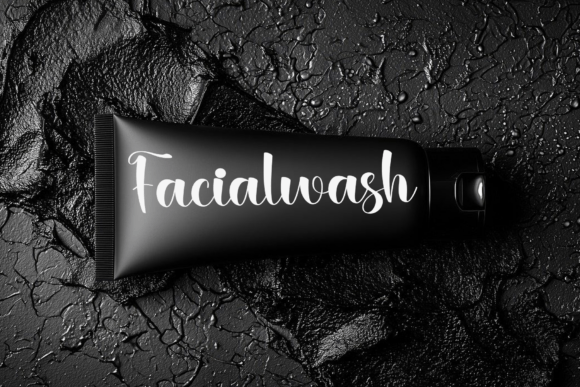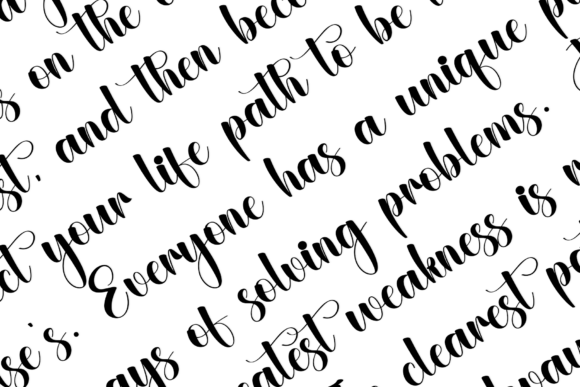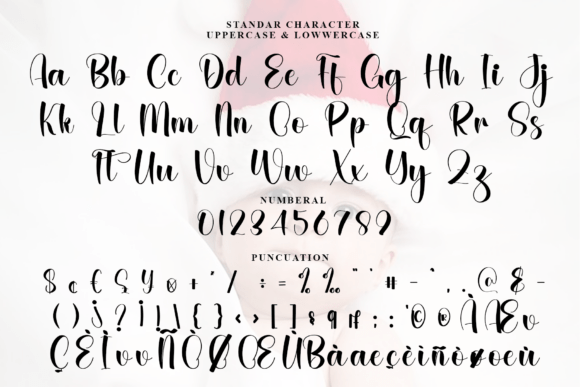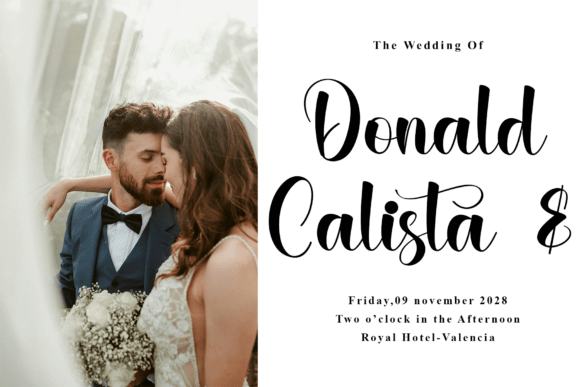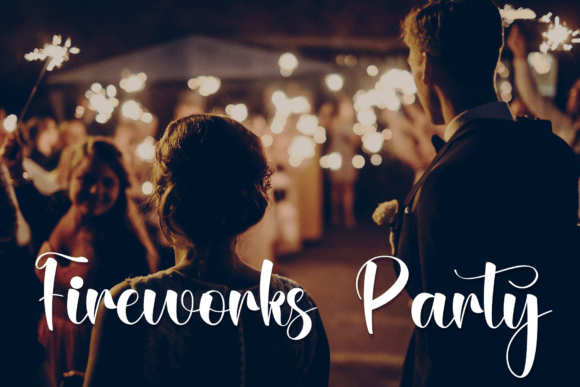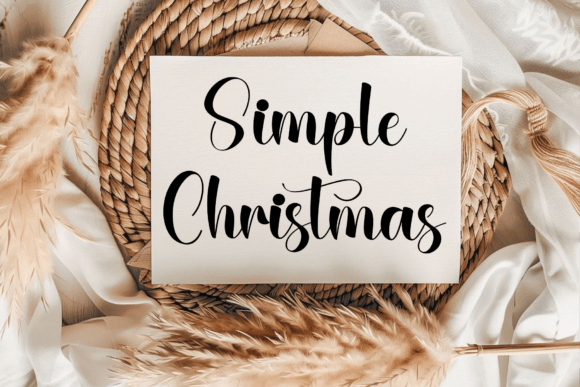
Babysanta Font: Elevate Your Designs with Elegance and Sophistication
In the world of typography, a font can make all the difference in elevating a design from ordinary to extraordinary. For designers and crafters seeking a touch of refined elegance and modern grace, the Babysanta Font is an exceptional choice. This sophisticated handwritten script font is designed to bring warmth, style, and a hint of timeless charm to any project.
The Essence of Babysanta Font
Babysanta Font is a masterpiece of modern calligraphy, boasting fluid curves and seamless letter connections that mirror the natural rhythm of a skilled calligrapher’s hand. The font’s balanced interplay of graceful swashes and clean letterforms ensures that it is not only beautiful but also highly readable. This makes it an ideal choice for a wide range of applications, including branding, invitations, stationery, packaging, and any design that requires a romantic yet contemporary feel.
Key Features of Babysanta Font
- Fluid Curves and Seamless Connections: The font’s fluid curves and seamless letter connections give it a natural, hand-crafted feel that is both elegant and sophisticated.
- Balanced Swashes and Clean Letterforms: The interplay of graceful swashes and clean letterforms ensures that the font is highly readable while maintaining its beauty.
- Subtle Contrast in Stroke Weight: The subtle contrast in stroke weight adds depth and movement to the typography, giving it an artistic flow that feels effortlessly luxurious.
- PUA Encoding: With PUA encoding included, all special characters, swashes, and decorative elements are easily accessible, allowing for effortless customization of designs.
Applications of Babysanta Font
Babysanta Font is incredibly versatile and can be used in a variety of design projects, including:
- Branding: Use Babysanta Font to create a sophisticated and elegant brand identity that sets your business apart.
- Invitations: Add a touch of luxury and refinement to your invitations, making them perfect for weddings, parties, and other special occasions.
- Stationery: Elevate your stationery designs with the elegant and modern feel of Babysanta Font.
- Packaging: Use Babysanta Font to create eye-catching and sophisticated packaging designs that reflect your brand’s personality.
Why Choose Babysanta Font?
In a world where typography plays a crucial role in design, Babysanta Font stands out as a exceptional choice for designers and crafters seeking elegance, sophistication, and a touch of modern grace. Here are just a few reasons why:
- Unique and Versatile: Babysanta Font is a unique and versatile font that can be used in a wide range of design projects.
- Elegant and Refined: The font’s elegant and refined design makes it perfect for projects that require a touch of sophistication.
- Easy to Customize: With PUA encoding included, customizing your designs with Babysanta Font is effortless and easy.
In conclusion, Babysanta Font is a sophisticated handwritten script font that is sure to elevate your designs with its refined elegance and modern grace. Its fluid curves, seamless letter connections, and balanced interplay of swashes and clean letterforms make it perfect for a wide range of applications. With its PUA encoding and easy-to-use design, Babysanta Font is an exceptional choice for designers and crafters seeking to add a touch of luxury and sophistication to their projects.
Whether you’re a designer, crafter, or simply someone who appreciates beautiful typography, Babysanta Font is an exceptional choice for anyone seeking to elevate their designs. With its unique blend of elegance, sophistication, and modern grace, Babysanta Font is sure to become a go-to font in your design arsenal.